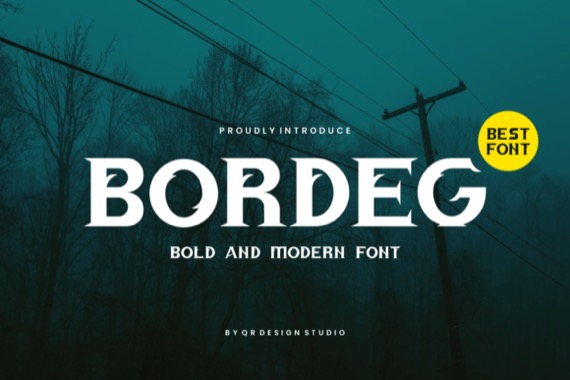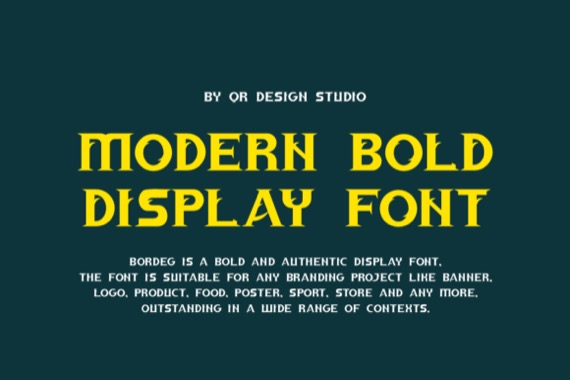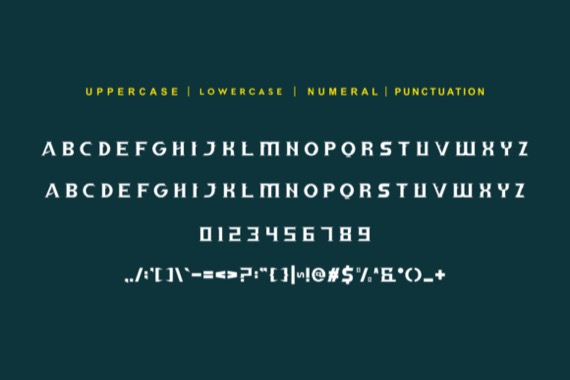
Bordeg is an incredibly clean decorative display font that was created and published by Qrdesignstd. Masterfully designed to become a true favorite, this font has the potential to bring each of your creative ideas to the highest level!
Bordeg Decorative Display Font